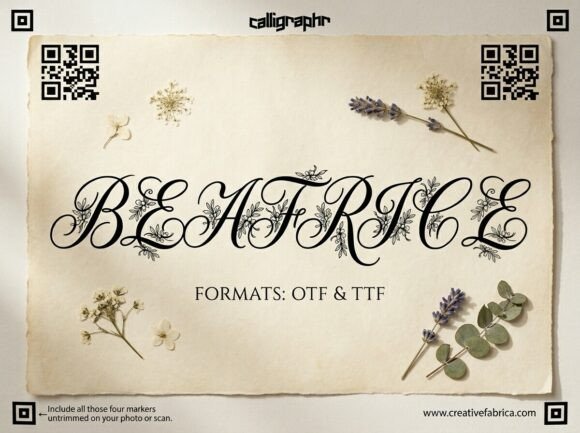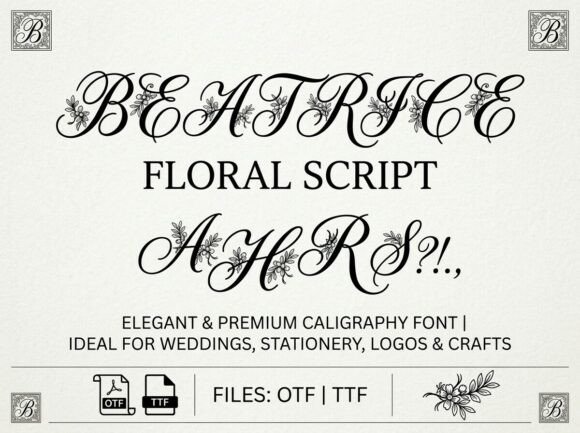
The Art of Timeless Elegance: Unveiling the Beatrice Font
Have you ever found yourself lost in the pages of a beautifully crafted wedding invitation, mesmerized by the intricate calligraphy and delicate illustrations that dance across the page? For designers, this moment of creative transport is a reminder that the right font can elevate a design from mere functionality to a work of art. This is where the Beatrice Font comes in – a deluxe ornamental script designed to evoke the essence of luxury and sophistication.
With its sweeping flourishes, delicate olive branches, and refined calligraphy, the Beatrice Font is the perfect choice for creating bespoke crests, high-end branding, and premium packaging that exudes prestige and elegance. For designers, it offers a unique opportunity to craft a romantic narrative and bring an air of organic beauty to their designs.
- Font Family: Beatrice is a modern script font designed to convey elegance and sophistication.
- Unique Characteristics: Beatrice features a flowing, cursive script with a subtle flair, making it perfect for creating invitations, greeting cards, and other special occasion designs.
Beatrice Font Review
Beatrice Font is a beautiful, elegant script font that exudes sophistication and refinement ✨. It’s perfect for creating invitations, wedding stationery, or any other design that requires a touch of luxury. The font’s flowing lines and curved shapes make it a joy to work with, and its wide range of weights and styles offer endless possibilities for customization.
One of the things that sets Beatrice apart is its excellent legibility ✨. The font is easy to read, even at small sizes, making it a great choice for body text or headings. Additionally, the font’s high-quality rendering ensures that it looks crisp and clear on both screen and print.
- ⚠️ The font may not be suitable for digital use at very small sizes, as it can become difficult to read.
- ⚠️ The font’s design is quite ornate, which may not be suitable for all design projects or styles.
Overall, I’m thoroughly impressed with Beatrice Font ✨. Its elegant design, excellent legibility, and wide range of customization options make it a versatile and effective choice for a wide range of design projects. While it may have some limitations, I believe that the font’s benefits far outweigh its drawbacks, and I would highly recommend it to any designer looking to add a touch of sophistication to their work.
Beatrice font is ideal for creative projects, such as:
- Photography captions and descriptions
- Book covers and interior design
To get the most out of Beatrice font, experiment with different font sizes, colors, and combinations to create a unique and eye-catching design.